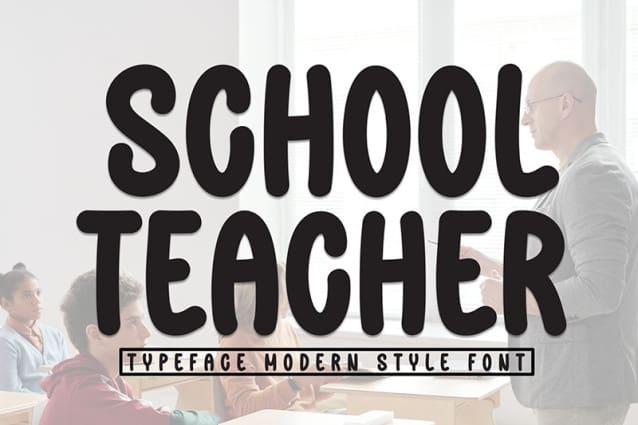
School Teachers Font
School Teachers Font, is a sweet and friendly handwritten display font. Cute and fun, this font is ideal for writing wedding invitations, cards, or any other design that might need a playful touch!